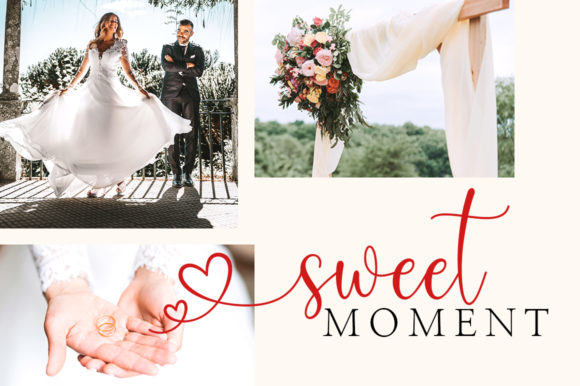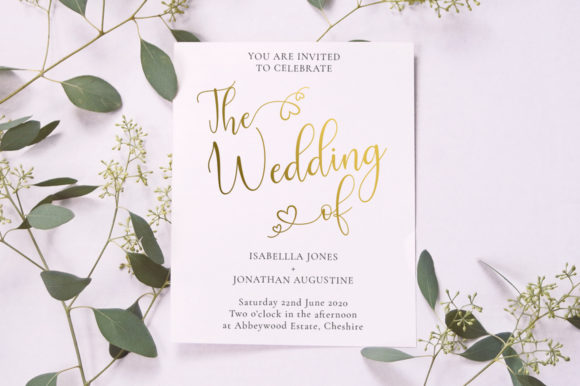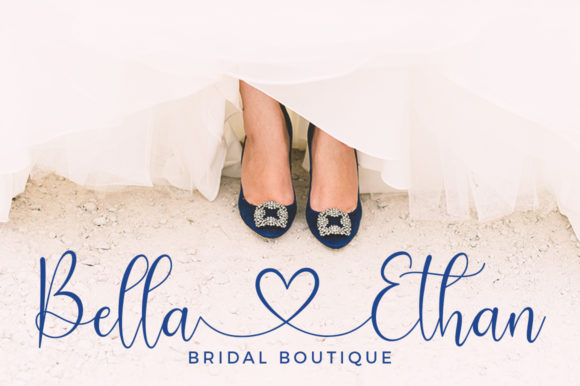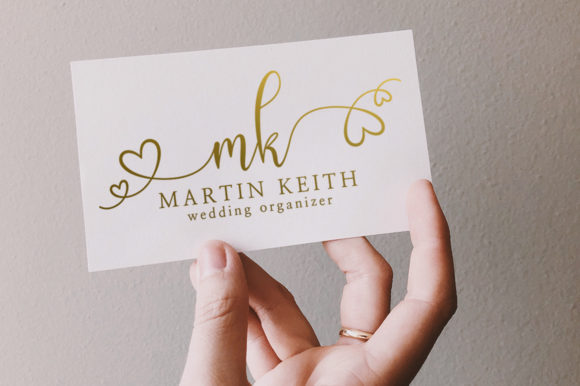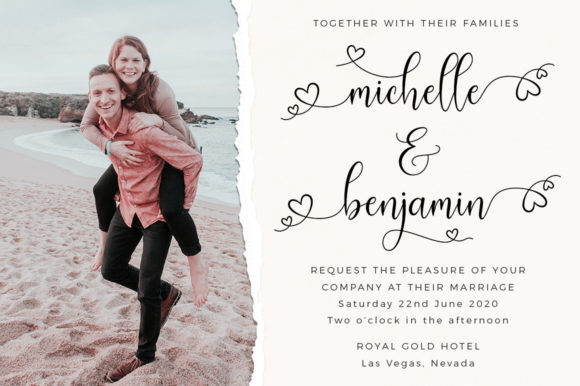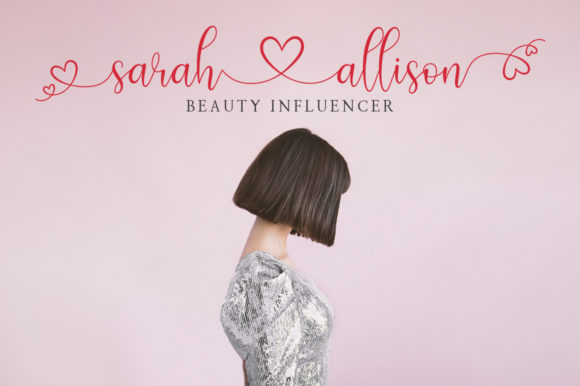
Introduction to Faith Grace Font
Have you ever stumbled upon a design that makes you feel like you’re floating on a cloud? That’s exactly what happens when you lay eyes on the Faith Grace Font. Its romantic and sweet calligraphy style has a way of transporting you to a whimsical world where elegance and playfulness blend together in perfect harmony.
As a designer, you’re always on the lookout for the perfect font to elevate your creative project. And that’s where the Faith Grace Font comes in – a high-quality design resource that’s waiting to be downloaded and used in your next project. Whether you’re creating a wedding invitation, a logo, or a poster, this font is sure to add a touch of sophistication and charm. With its transparent background and versatile style, the Faith Grace Font is a valuable addition to any designer’s toolkit.
Key Features of Faith Grace Font
- High-quality design for creative projects: Faith Grace Font is a beautiful, elegant font perfect for use in wedding invitations, greeting cards, and other design projects.
- Medium weight and size: The font comes in a medium weight and size, making it suitable for a variety of design applications, from small text to larger headings.
- Resolution: The font is designed at a high resolution, ensuring that it looks crisp and clear even at larger sizes.
- Perfect for design projects: Faith Grace Font is a versatile design resource that can be used in a variety of creative projects, from branding and marketing materials to digital art and print design.
Honest Review: Faith Grace Font
I recently had the chance to work with the Faith Grace Font, and I must say it’s been a great addition to my design arsenal. This font is a high-quality design resource that’s perfect for creative projects that require a touch of elegance and sophistication.
Here are some things that work well with the Faith Grace Font:
- ✨ Beautiful calligraphy-style script that adds a personal touch to any design
- ✨ High-quality design that’s suitable for both digital and print projects
- ⚠️ Limited font sizes and styles available (although the script style is versatile enough to work in most situations)
- ⚠️ No transparent background option, which may be a issue for designers who need to use the font on complex backgrounds
Overall, I’m impressed with the Faith Grace Font and would recommend it to designers who are looking for a high-quality, elegant font for their creative projects. While it may have some limitations, its unique design and free download option make it a valuable addition to any design library.